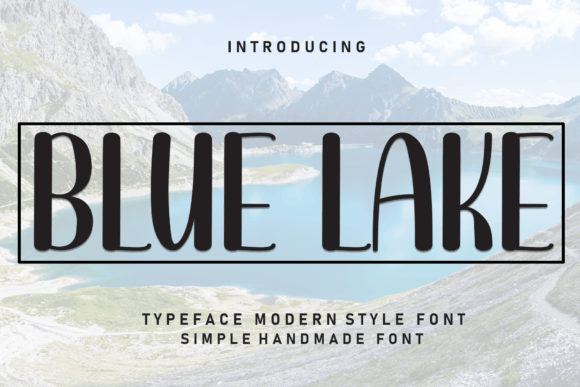
Introducing Blue Lake Font: The Sweet and Friendly Handwritten Font
Are you looking for a font that can add a personal touch to your designs? Look no further than Blue Lake Font, a sweet and friendly handwritten font that is perfect for a variety of creative projects. In this article, we’ll take a closer look at Blue Lake Font, its features, and how you can use it to elevate your designs.
What is Blue Lake Font?
Blue Lake Font is a beautiful, handwritten font that is designed to bring a fresh and casual feel to your designs. It’s a versatile font that can be used for a wide range of projects, from wedding invitations and cards to social media graphics and more.
One of the standout features of Blue Lake Font is its sweet and friendly tone. The font has a warm and inviting feel that makes it perfect for designs that require a personal touch. Whether you’re creating a wedding invitation or a greeting card, Blue Lake Font is sure to make your design stand out.
Key Features of Blue Lake Font
So, what makes Blue Lake Font so special? Here are some of its key features:
- Handwritten style: Blue Lake Font has a beautiful, handwritten style that gives it a personal and unique feel.
- Sweet and friendly tone: The font has a warm and inviting tone that makes it perfect for designs that require a personal touch.
- Fresh and casual feel: Blue Lake Font has a fresh and casual feel that makes it perfect for a wide range of creative projects.
- Versatile: The font is versatile and can be used for a wide range of projects, from wedding invitations and cards to social media graphics and more.
How to Use Blue Lake Font
Blue Lake Font is easy to use and can be incorporated into a wide range of designs. Here are some ideas for using Blue Lake Font:
- Wedding invitations: Blue Lake Font is perfect for wedding invitations, as it adds a personal and romantic touch to the design.
- Greeting cards: The font is also great for greeting cards, as it adds a warm and friendly feel to the design.
- Social media graphics: Blue Lake Font can be used to create social media graphics that are both visually appealing and engaging.
- Blog posts: The font can also be used to add a personal touch to blog posts and articles.
Benefits of Using Blue Lake Font
There are many benefits to using Blue Lake Font in your designs. Here are some of the most significant advantages:
- Unique and personal touch: Blue Lake Font adds a unique and personal touch to your designs, making them stand out from the crowd.
- Easy to read: The font is easy to read, making it perfect for designs that require a lot of text.
- Versatile: Blue Lake Font is versatile and can be used for a wide range of projects.
- Time-saving: The font is pre-designed, saving you time and effort in creating a unique font from scratch.
Tips for Using Blue Lake Font
Here are some tips for using Blue Lake Font effectively:
- Use it sparingly: Use Blue Lake Font sparingly to add a personal touch to your designs. Overusing the font can make your design look cluttered and unprofessional.
- Pair it with other fonts: Blue Lake Font can be paired with other fonts to create a unique and visually appealing design.
- Experiment with colors: The font looks great in a variety of colors, so experiment with different colors to find the one that works best for your design.
- Pay attention to spacing: Pay attention to the spacing between letters and words to ensure that your design looks clean and professional.
Blue Lake Font is a beautiful, handwritten font that is perfect for adding a personal touch to your designs. Its sweet and friendly tone, fresh and casual feel, and versatility make it a great choice for a wide range of creative projects. By following the tips outlined in this article, you can use Blue Lake Font to create stunning designs that are both visually appealing and engaging.
- What is Blue Lake Font? Blue Lake Font is a sweet and friendly handwritten font that is perfect for adding a personal touch to your designs.